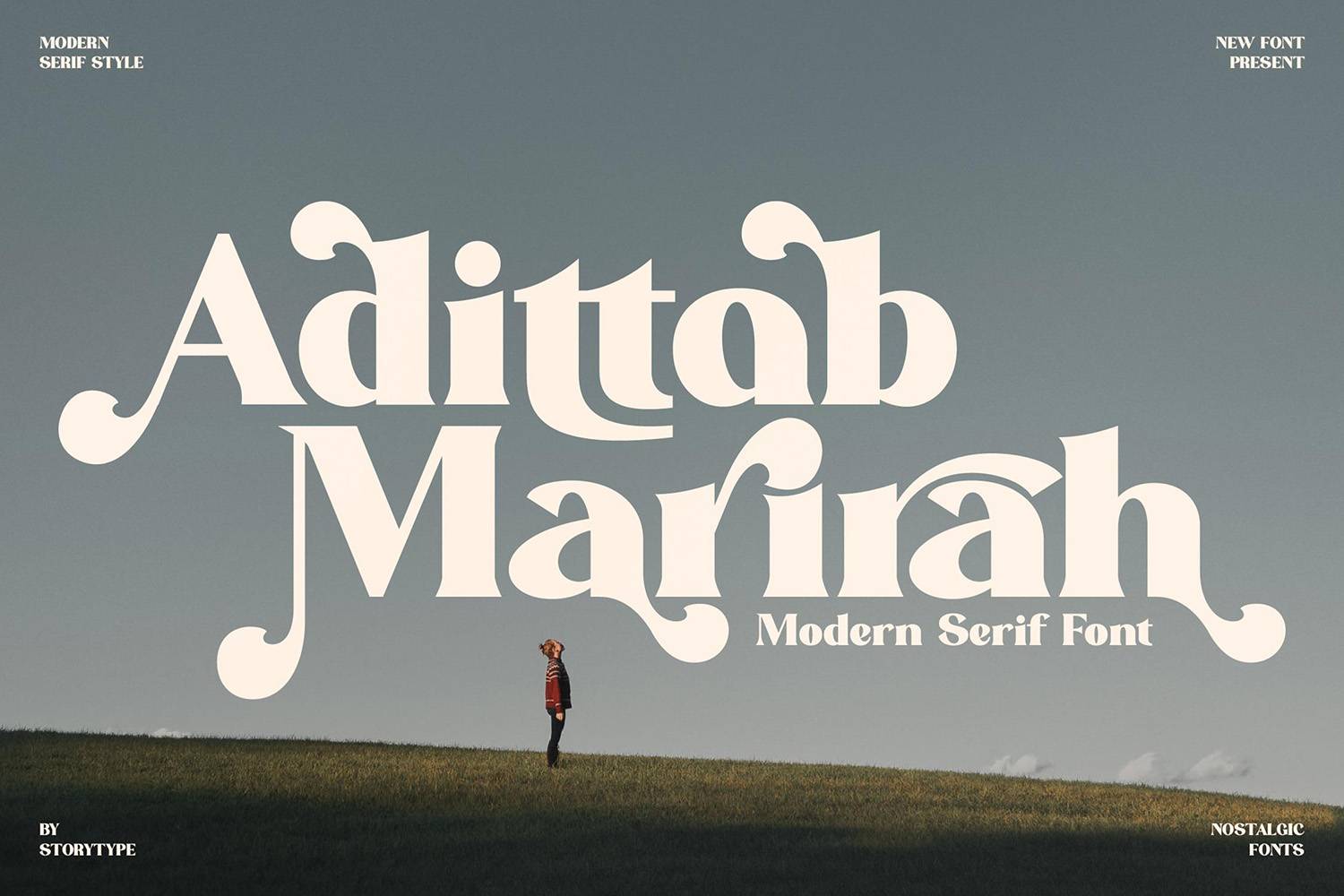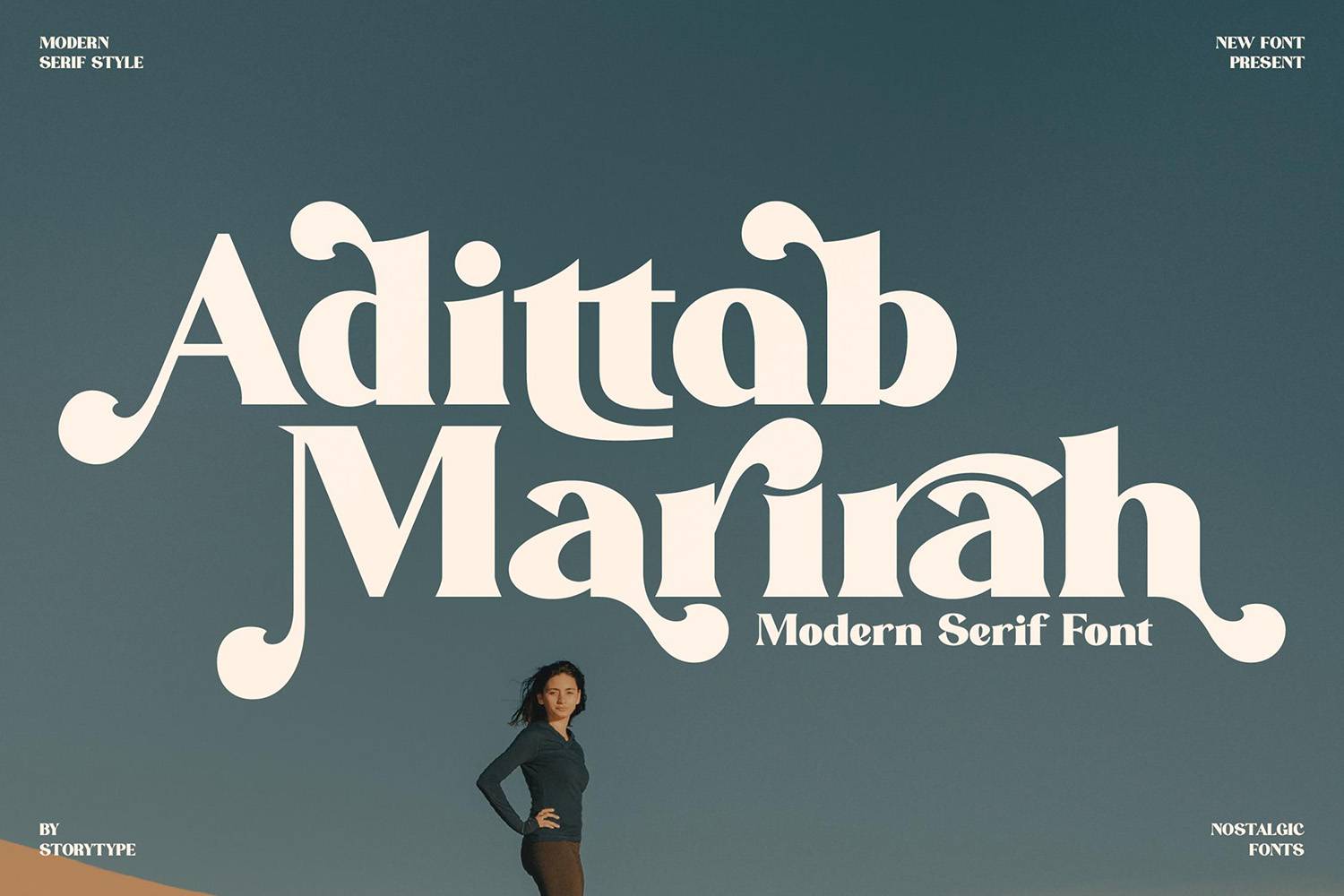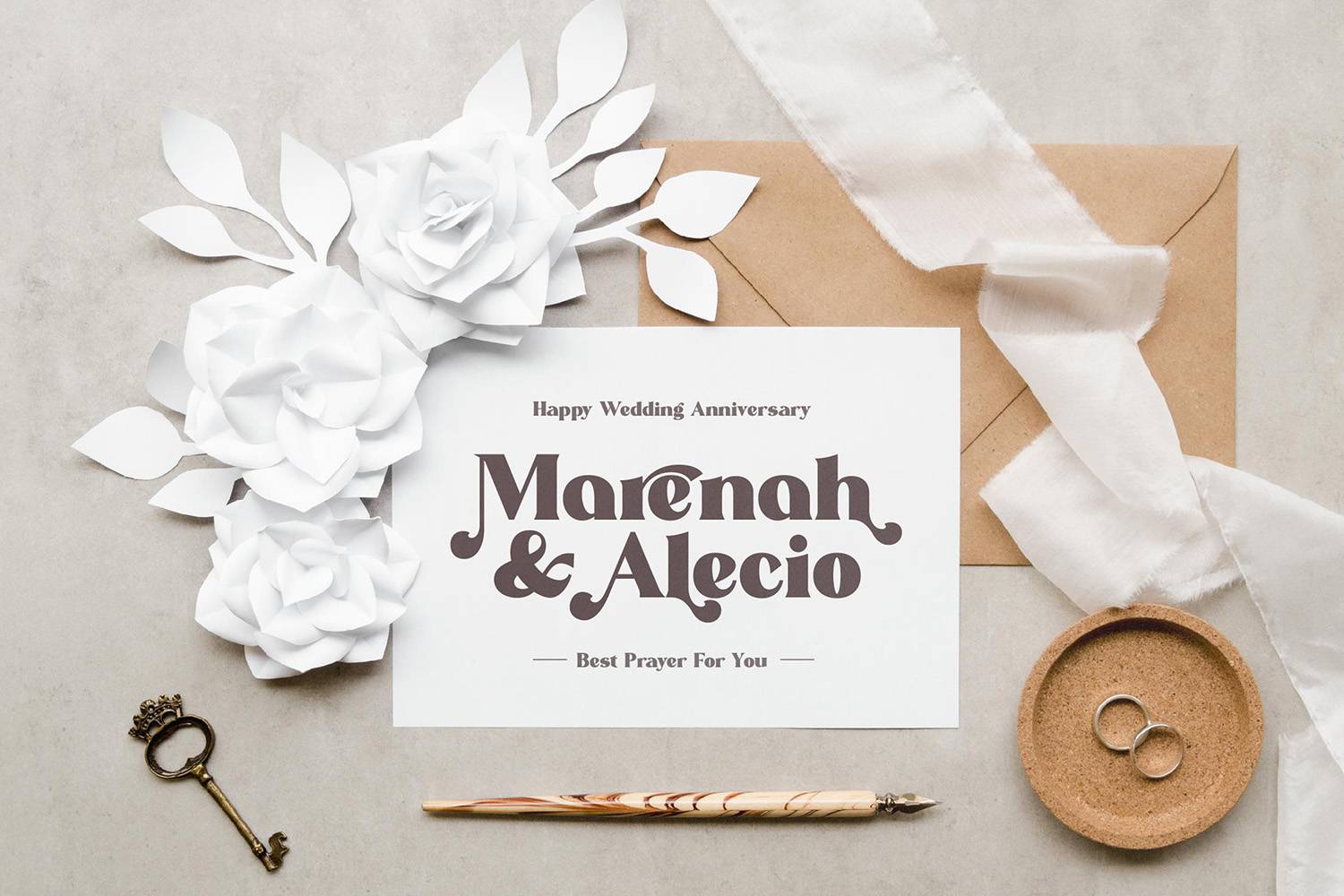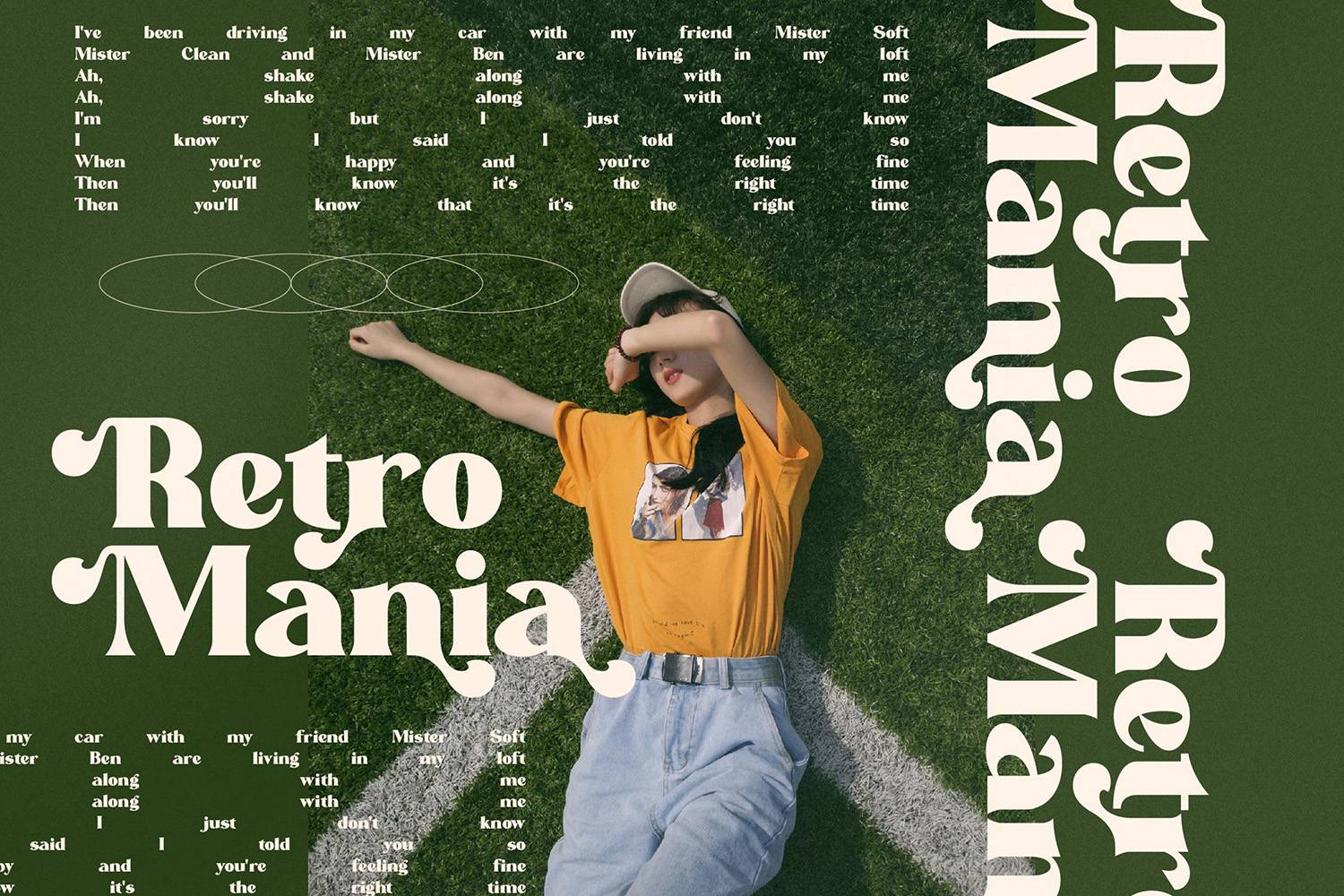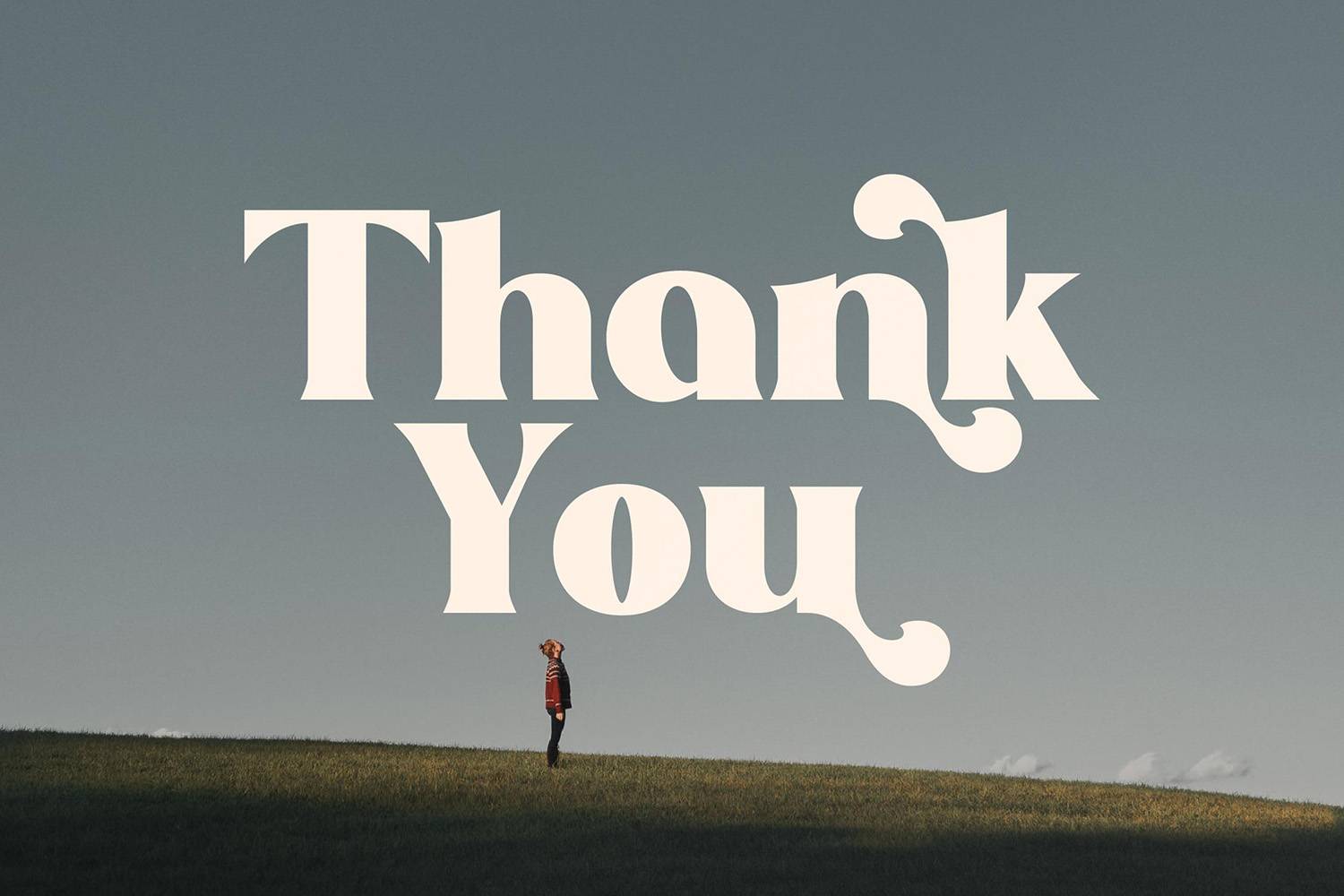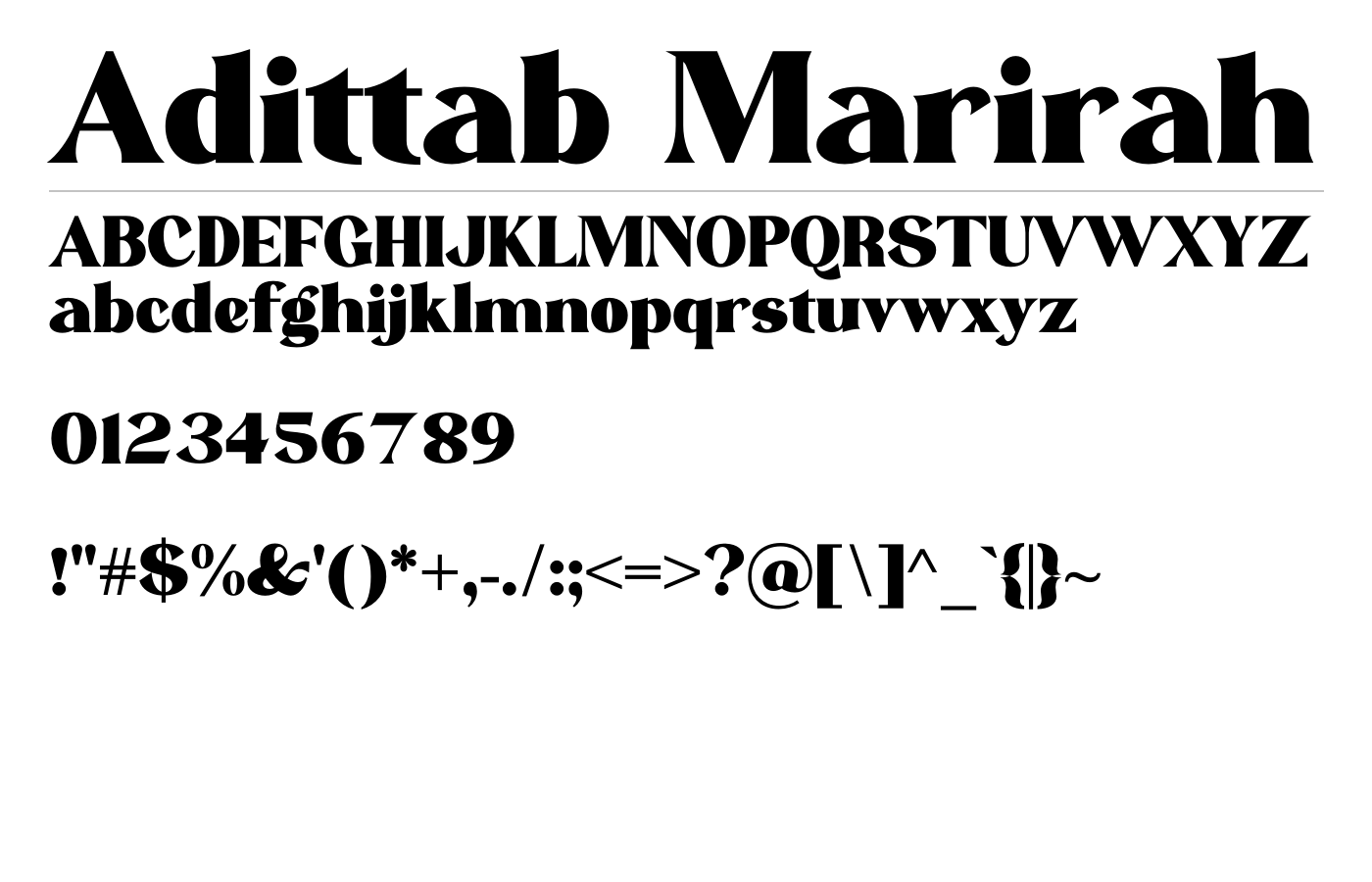
Adittab Marirah is a bold serif font with a classic, high-contrast design that combines sharp, triangular serifs with sturdy, wide letterforms, giving it a strong and elegant presence. Its traditional yet distinctive style makes it ideal for headlines, logos, and branding projects that seek to convey confidence, sophistication, and a timeless appeal. This font works well in editorial design and luxury packaging where a powerful yet refined typographic voice is needed.
Adittab Marirah Font
About Adittab Marirah Font